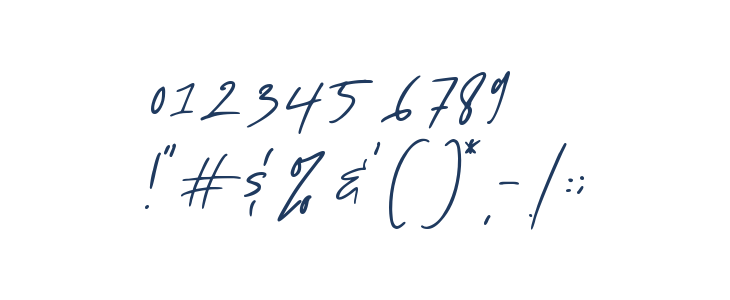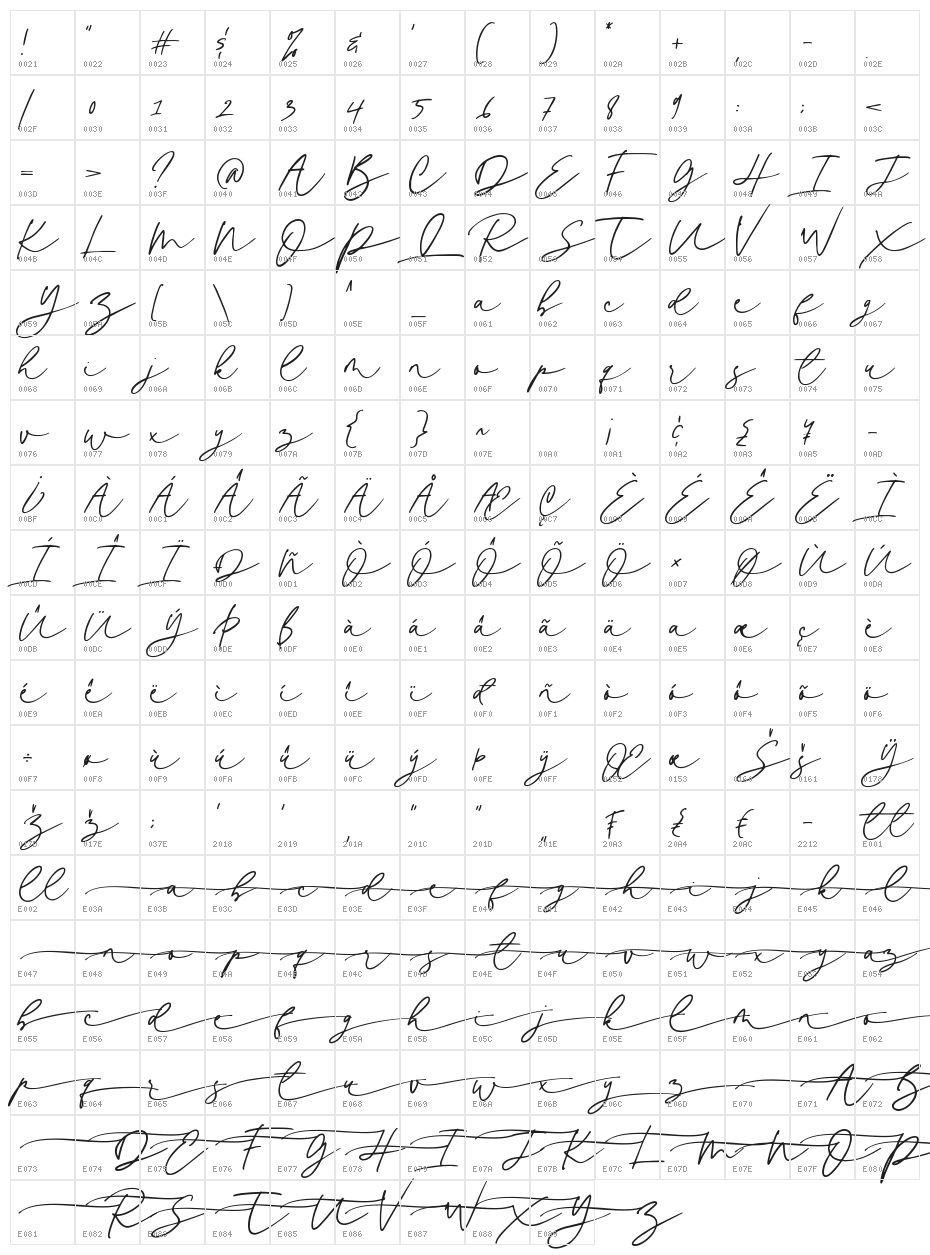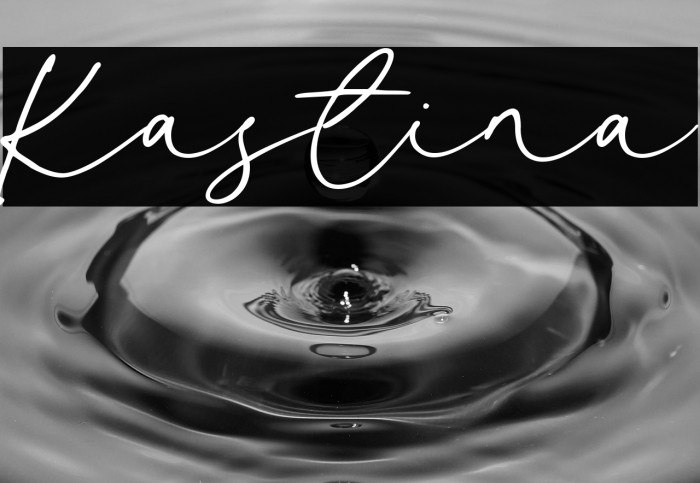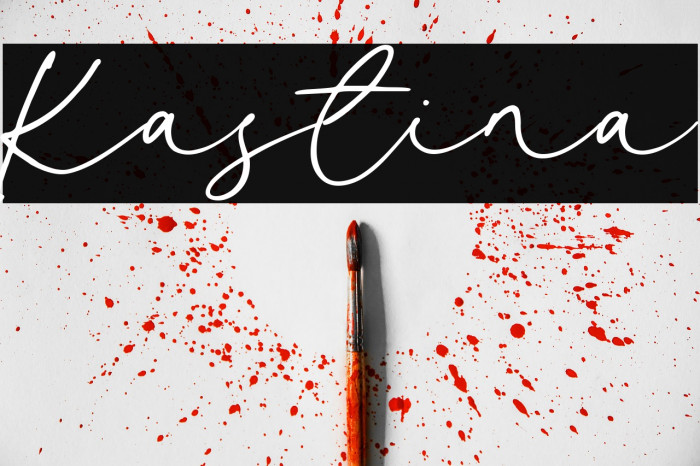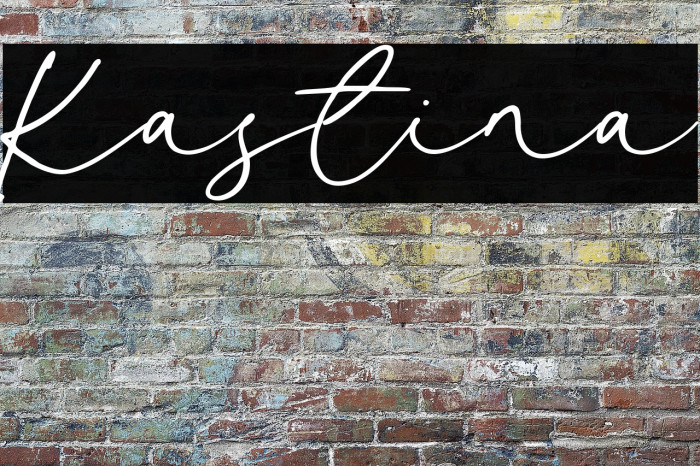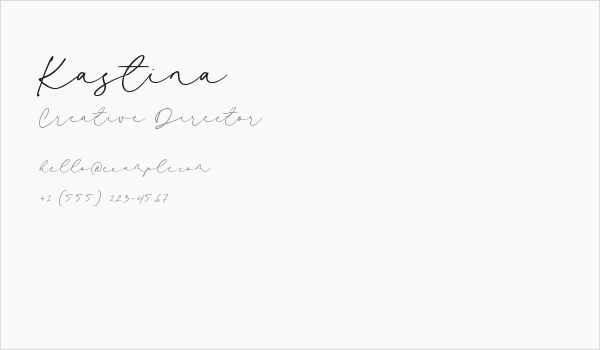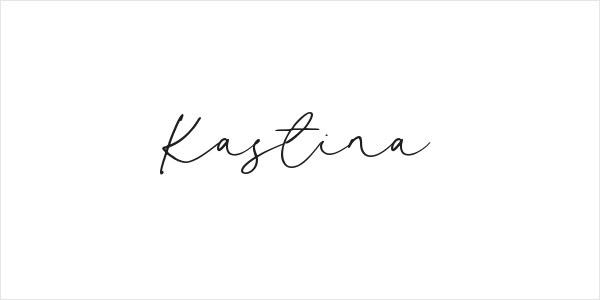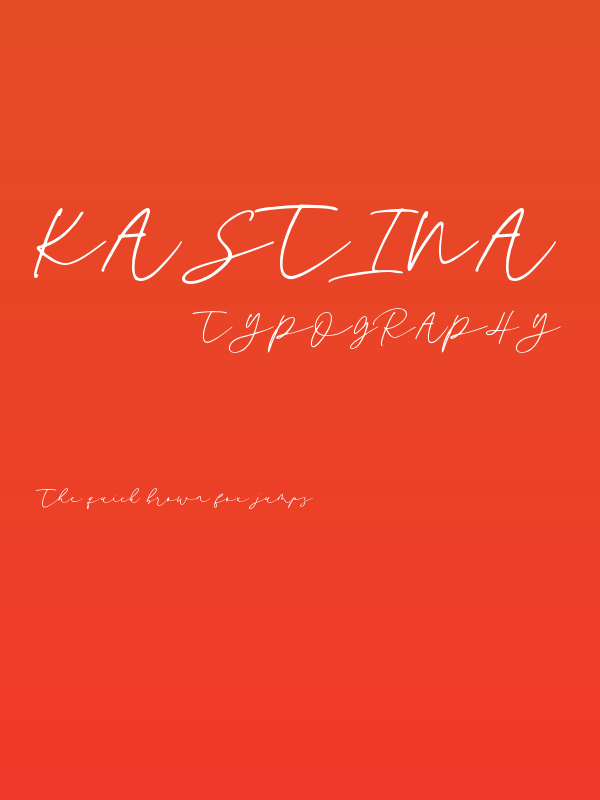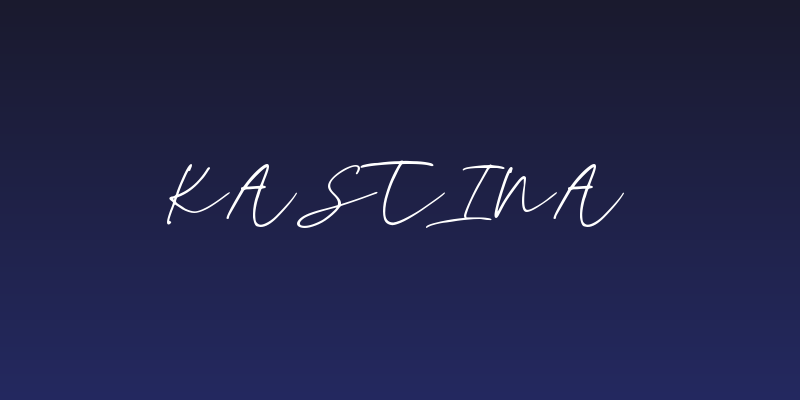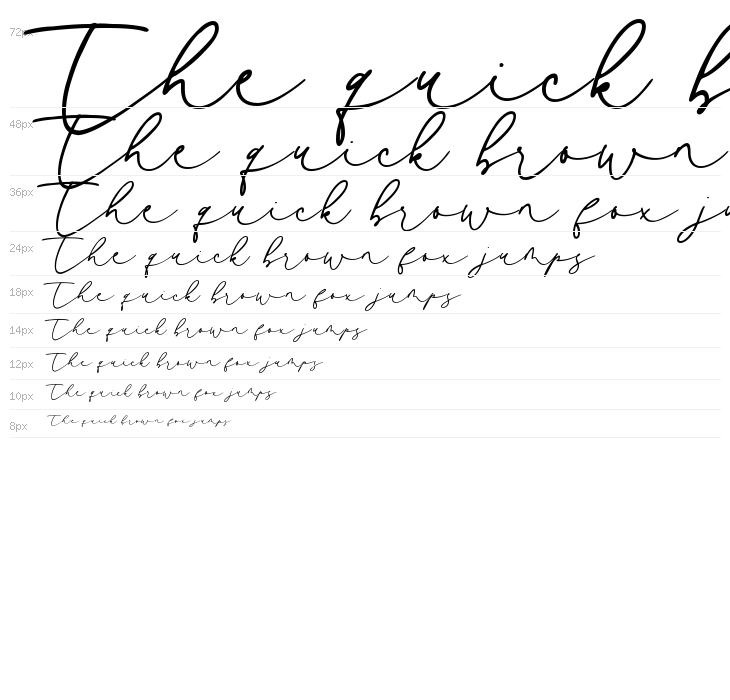
Kastina Font
Kastina Description
This font exudes a casual and elegant handwritten style, characterized by its fluid and connected letterforms. The uppercase and lowercase letters maintain a consistent flow, with smooth curves and a slight slant that gives it a natural and personal touch. The numerals and special characters are crafted with the same attention to detail, ensuring a cohesive look across all glyphs. The strokes vary in thickness, adding a dynamic and lively feel to the text. This font is perfect for projects that require a personal, friendly, and approachable aesthetic.
| Overall Style | Casual, Elegant |
| Use Case | Logos, Invitations, Social Media |
| Proposed Projects | Ideal for wedding invitations, personal branding, greeting cards, and social media graphics. |